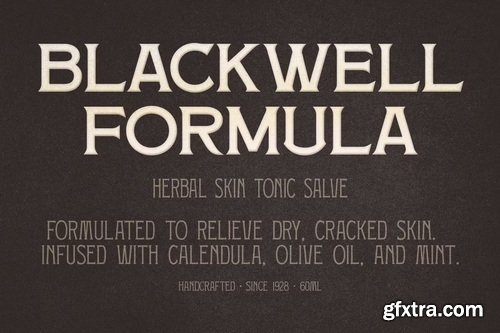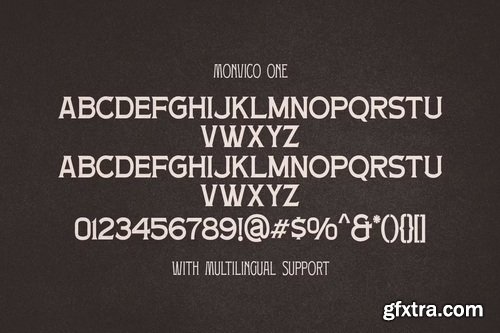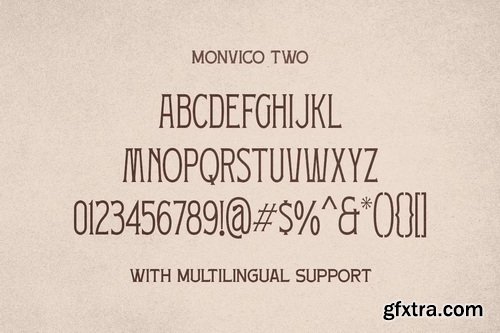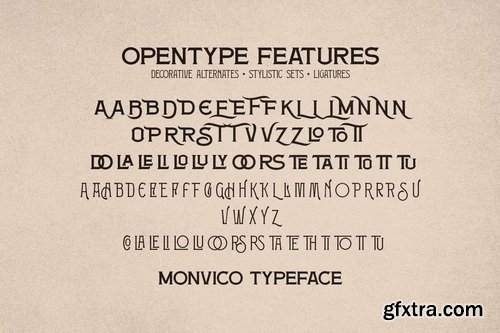
- Monvico is a bold and vintage-inspired label display font, carefully crafted with a traditional touch. It offers two distinct styles that are perfect for creating a strong visual identity, especially in designs inspired by heritage packaging and old-world branding.
- This font is ideal for labels, logos, packaging, signage, posters, vintage branding, menus, and apparel design. With its bold character, clean curves, and classic proportions, Monvico gives your project an authentic and premium vintage feel. Whether you're working on a whiskey label, coffee branding, or retro poster, Monvico brings heritage charm, elegance, and professional structure to any layout.